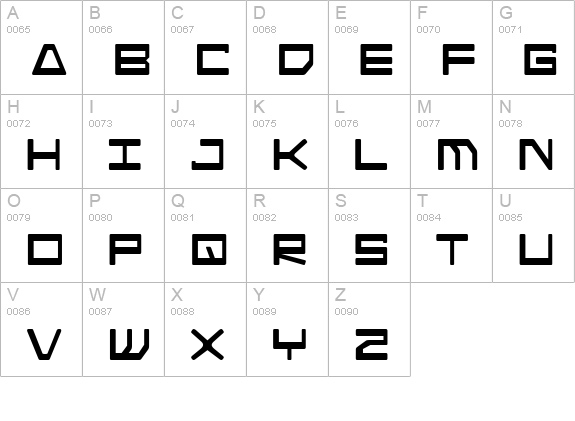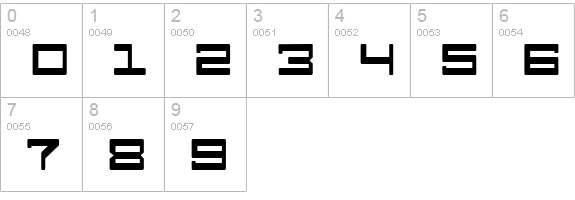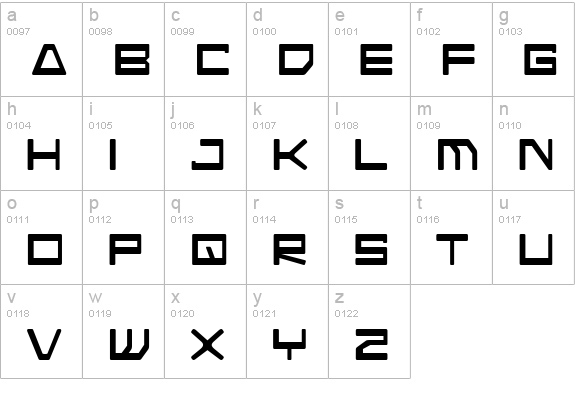
Android Nation is a modern and sleek font that combines futuristic design elements with a touch of boldness. This versatile typeface is perfect for a wide range of design projects, from digital branding to print materials. With its clean lines and contemporary aesthetic, Android Nation exudes a sense of cutting-edge style and innovation. What makes Android Nation even more appealing is that it is completely free to download at FontsMarket.com. This means that you can easily access this stunning font and use it in your projects without any cost. Whether you are working on a website, a poster, a logo, or any other design, Android Nation offers you the flexibility and creativity to make your ideas come to life. Elevate your designs with Android Nation and let its modern charm captivate your audience.